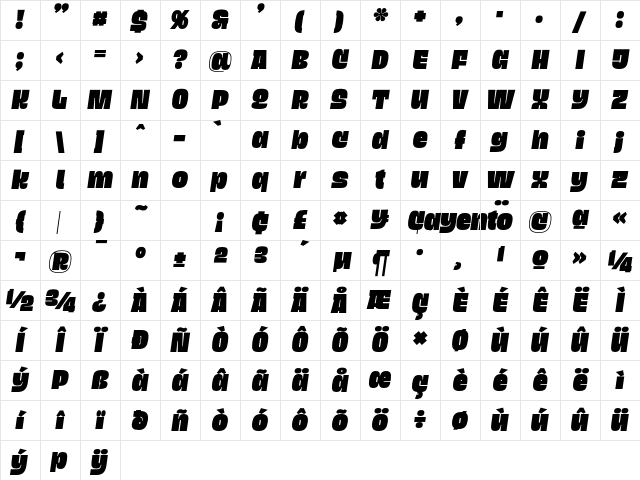
Complete Cayento PERSONAL USE Italic glyph index. Displaying only characters natively supported by Cayento PERSONAL USE Italic font.
Cayento PERSONAL USE is a composed and adaptable typeface that performs quietly and consistently across a wide range of design contexts. The slanted form adds forward momentum and visual energy.